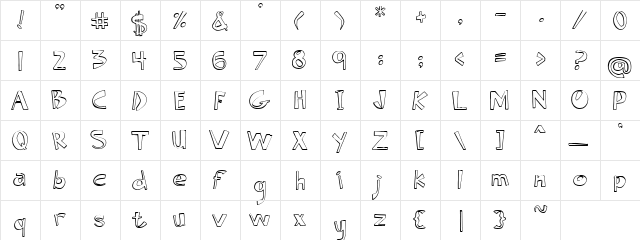
PC Shadow Hut Regular
Design Context for PC Shadow Hut Typeface
PC Shadow Hut brings ornamental detail and strong personality to headlines and identities, where visual impact matters more than quiet functionality.
Font Pairing: Pair with a clean neutral sans-serif for body copy to let PC Shadow Hut's character lead without overwhelming the composition.
Pro Tip: Treat PC Shadow Hut as the centrepiece of your typographic hierarchy. One strong heading set in a decorative face can carry an entire layout.